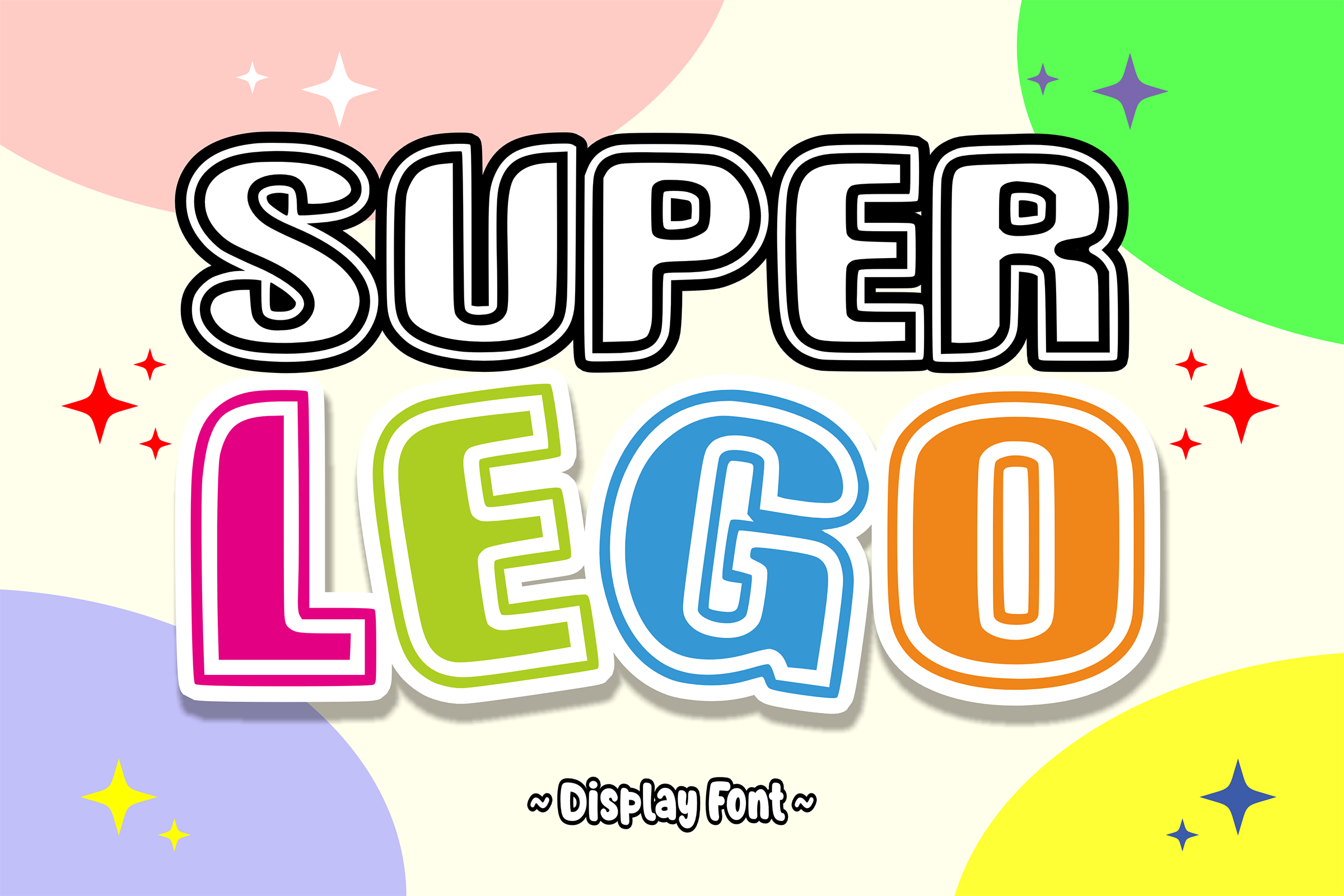
Super Lego - Kids Font Types
Super Lego is a cheerful font that brings fun and imagination to your projects. With its cheerful style and appearance, this font offers hope for a variety of creative endeavors. Let this font add a pop of color and aesthetic elements to your designs, suitable for everything from posters, stickers, comics, and more.